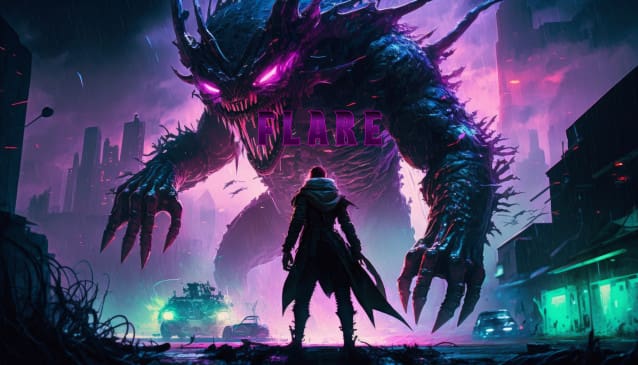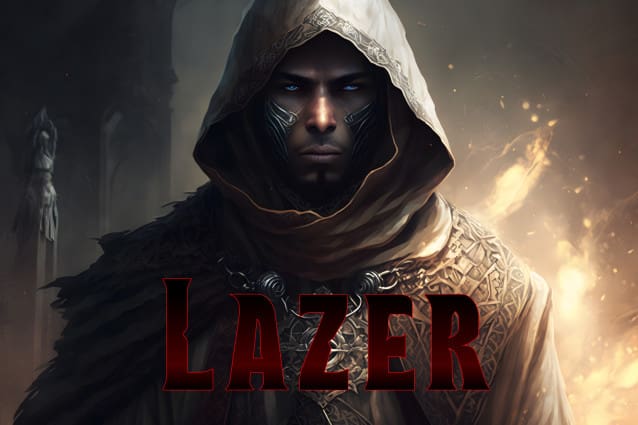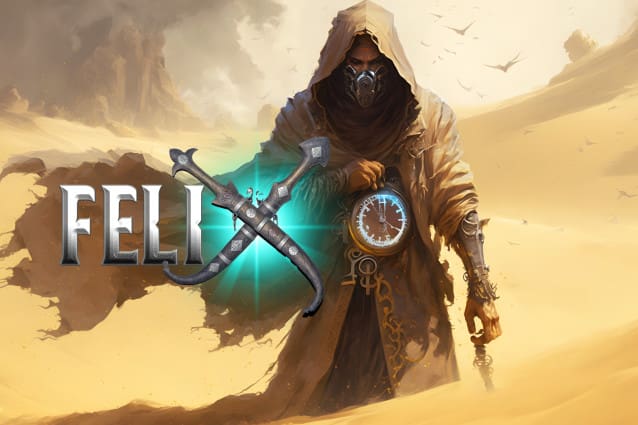
Munake Font
Munake Font, It would be a perfect choice to design posters, affiches, logos, t-shirt and magazine prints, eye-pleasing typographic designs and more.